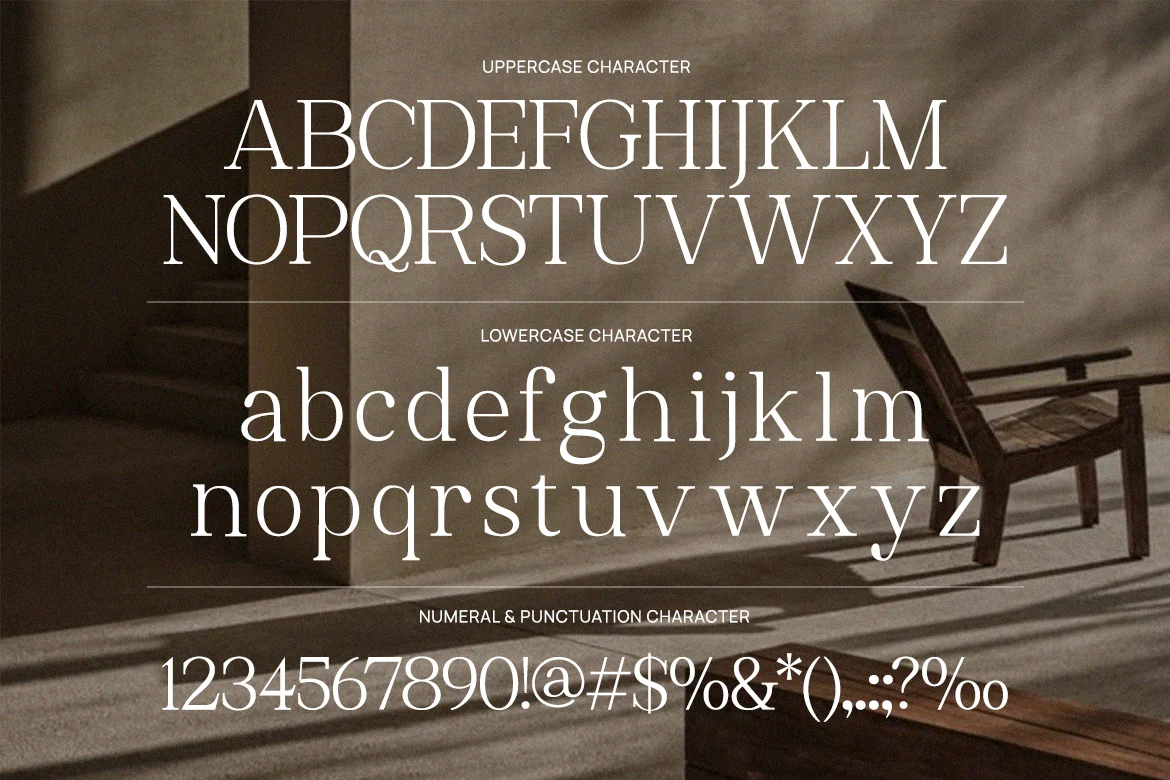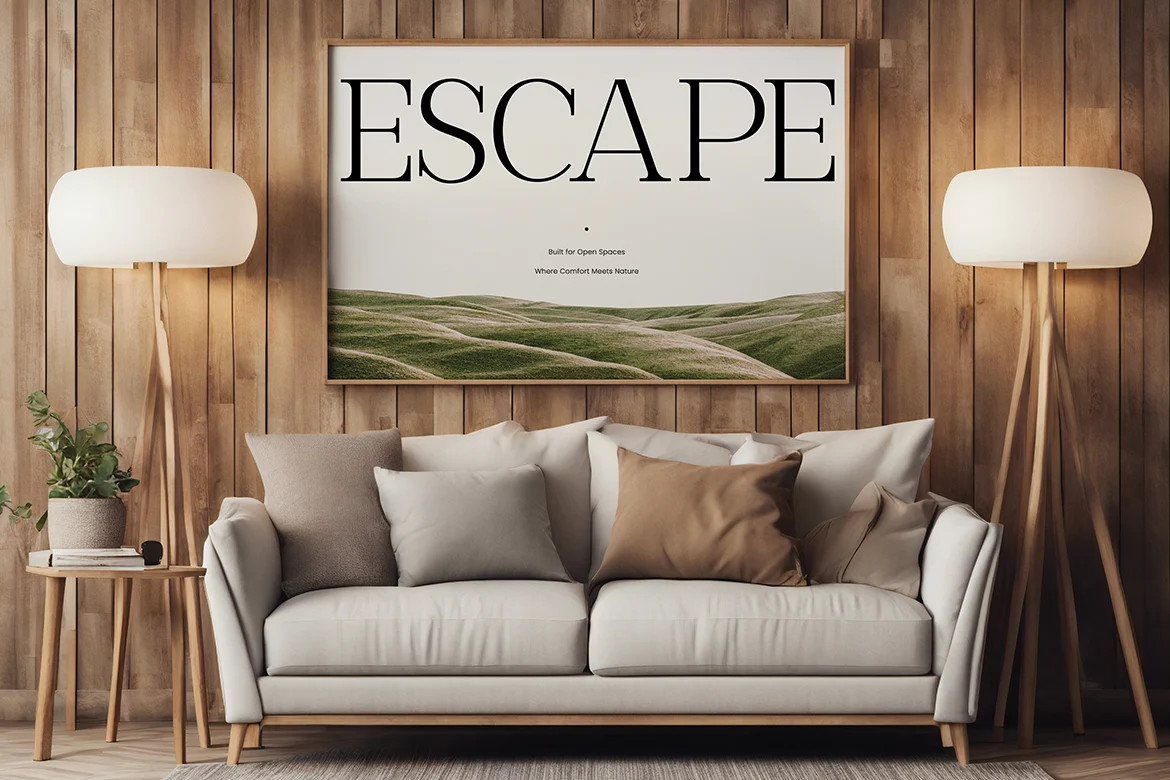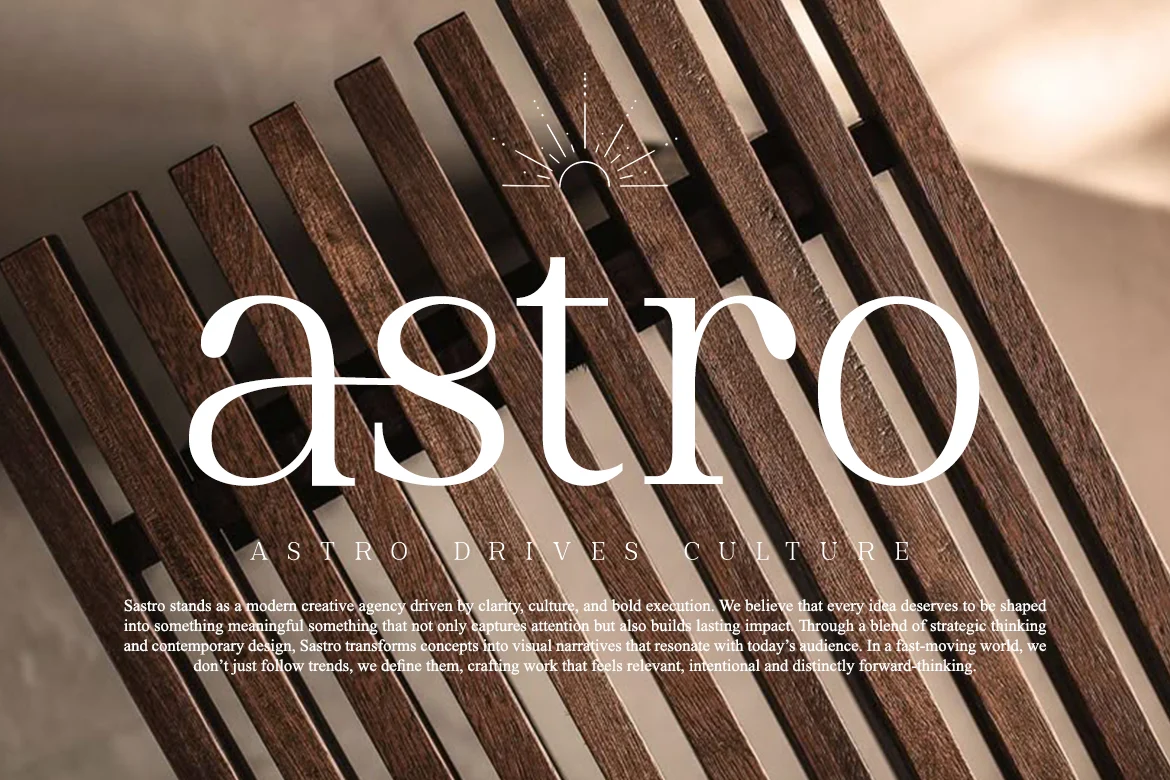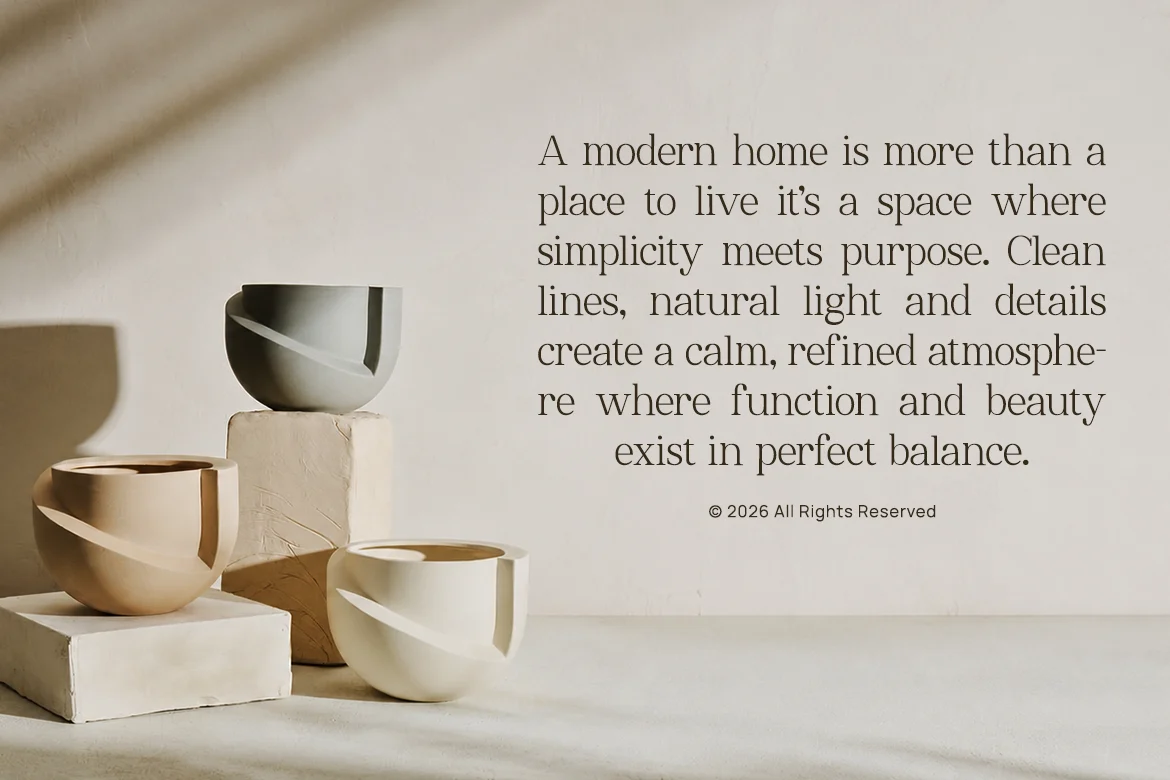
Vaurum Modern Serif Font
Vaurum Modern Serif is a refined display typeface featuring elegant high-contrast strokes, graceful curves, and sophisticated serif detailing. Designed with balanced proportions and clean spacing, this font delivers a luxurious editorial aesthetic while maintaining excellent readability for both large headlines and stylish branding compositions. Its timeless character blends contemporary minimalism with classic serif elegance, creating a calm and upscale visual atmosphere.
Relevance and Use Cases is perfect for luxury branding, fashion editorials, interior design presentations, beauty packaging, wedding stationery, boutique logos, lifestyle magazines, hotel identities, and premium social media visuals. Its elegant structure and minimalist sophistication make it ideal for projects that require a calm, refined, and upscale visual presence.
- Numeral & Punctuations